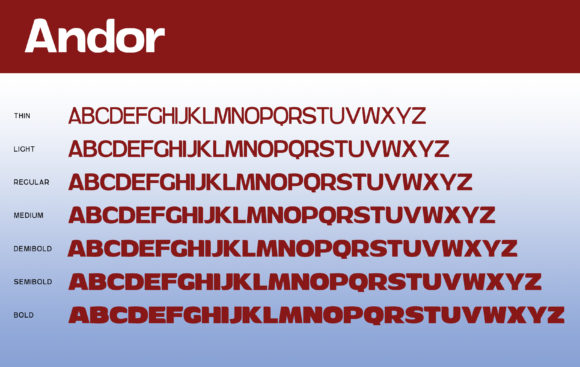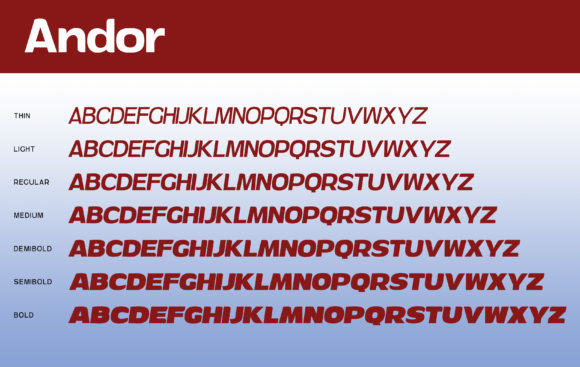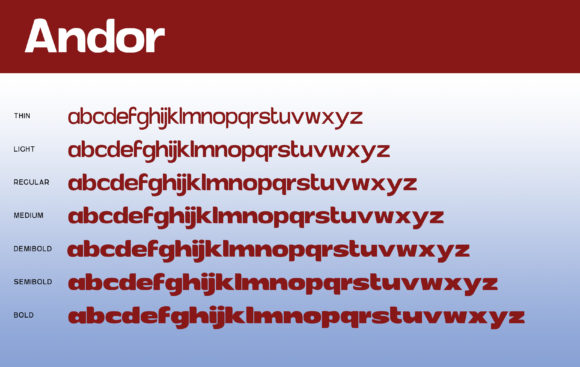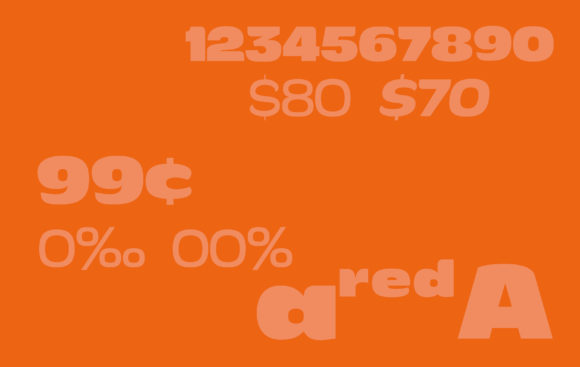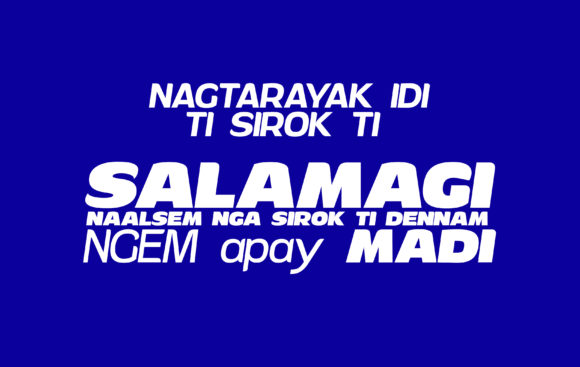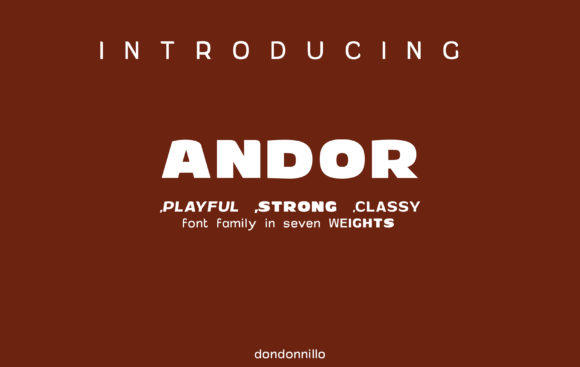
Introducing the Andor Family Font: Elevate Your Design with a Classy and Playful Touch
In the world of typography, a font can make all the difference in the success of a design project. Whether you’re a seasoned designer or a crafty enthusiast, finding the right font can be a daunting task. That’s where the Andor Family Font comes in – a striking sans serif font that combines a classy style with a strong and playful touch. In this article, we’ll dive into the features and benefits of the Andor Family Font, and explore how it can elevate your design projects.
A Versatile Font for a Wide Range of Applications
The Andor Family Font is a versatile typeface that comes in 7 weights, making it perfect for a wide range of applications. Whether you’re designing a logo, creating a brochure, or developing a brand identity, this font has got you covered. The 7 weights offer a range of options for designers, from light and elegant to bold and playful, allowing you to tailor your typography to suit your design needs.
Key Features of the Andor Family Font
- Classy Style: The Andor Family Font boasts a sophisticated and elegant design, making it perfect for high-end branding, luxury packaging, and editorial design.
- Strong and Playful Touch: With its strong and playful touch, this font is ideal for designs that require a bit of personality and whimsy, such as children’s book titles, posters, and social media graphics.
- 7 Weights: The Andor Family Font comes in 7 weights, ranging from thin to black, providing a range of options for designers to experiment with.
- Sans Serif: As a sans serif font, Andor is clean, modern, and highly legible, making it perfect for digital and print applications.
Perfect for Large Text Displays, Branding, Headings, Packaging, and More!
The Andor Family Font is designed to make a statement, making it perfect for large text displays, headings, and titles. Its clean and modern design ensures that it remains highly legible, even at large sizes. Additionally, the font’s versatility makes it suitable for a wide range of applications, including:
- Branding: Use the Andor Family Font to create a strong and recognizable brand identity.
- Headings: Add a touch of elegance and sophistication to your headings and titles.
- Packaging: Make your packaging stand out with a bold and eye-catching font.
- Digital Displays: Use the Andor Family Font to create stunning digital displays, such as website headers, social media graphics, and more.
Why Choose the Andor Family Font?
With so many fonts available, why choose the Andor Family Font? Here are just a few reasons:
- Unique Style: The Andor Family Font offers a unique blend of classy and playful styles, making it a standout in any design.
- Versatility: With 7 weights and a range of applications, this font is perfect for designers who need a reliable and flexible typeface.
- High Legibility: The Andor Family Font is designed to be highly legible, making it perfect for digital and print applications.
In conclusion, the Andor Family Font is a versatile and striking sans serif font that is perfect for designers and crafters looking to elevate their design projects. With its classy style, strong and playful touch, and 7 weights, this font is suitable for a wide range of applications, from branding and headings to packaging and digital displays. Whether you’re a seasoned designer or just starting out, the Andor Family Font is a great addition to your typography toolkit.